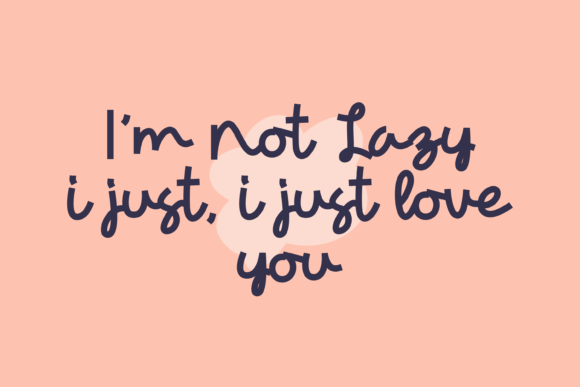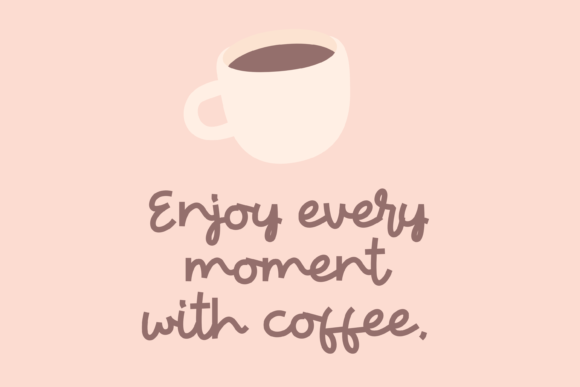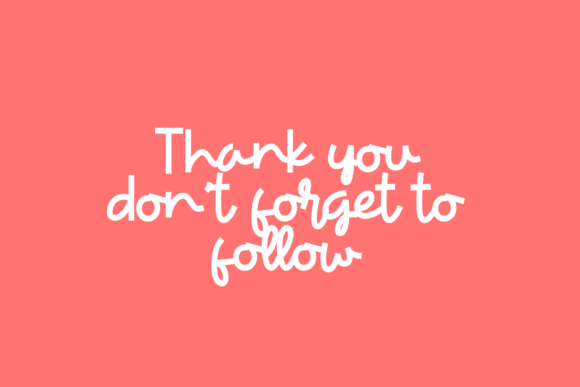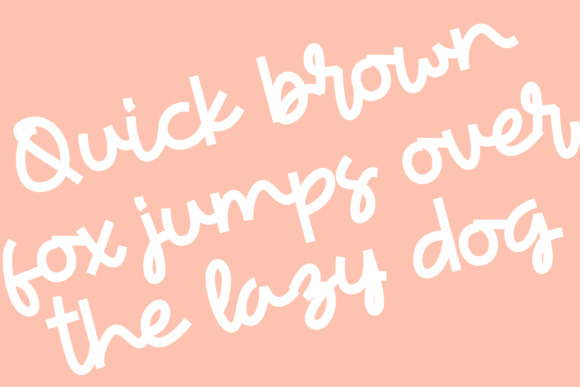
About Laziest Cat Font
Laziest Cat is a fun, casual and trendy handwritten font. Whimsical and a bit quirky, this font will brighten up each of your designs. Add it confidently to your projects, and you will love the results.